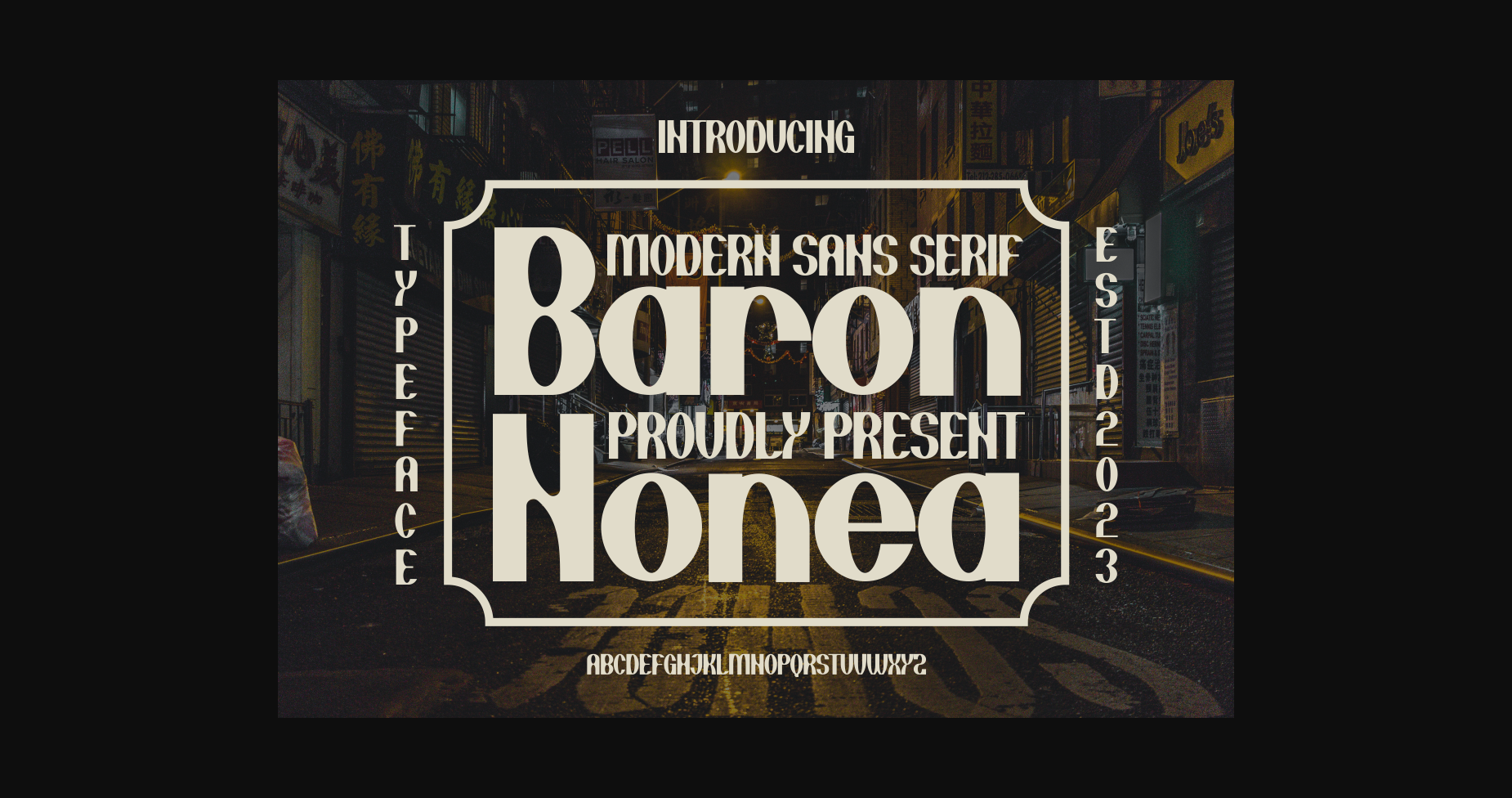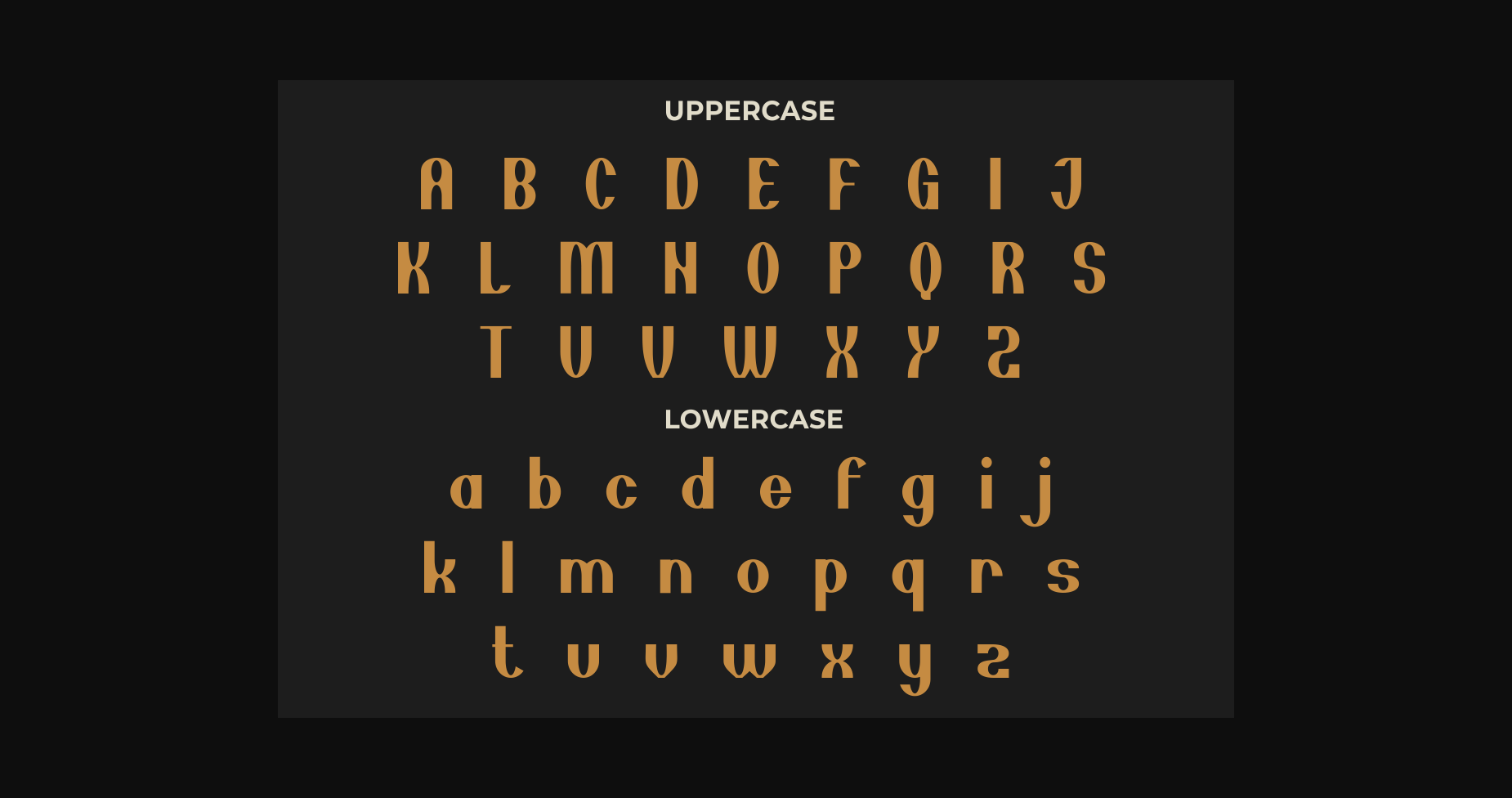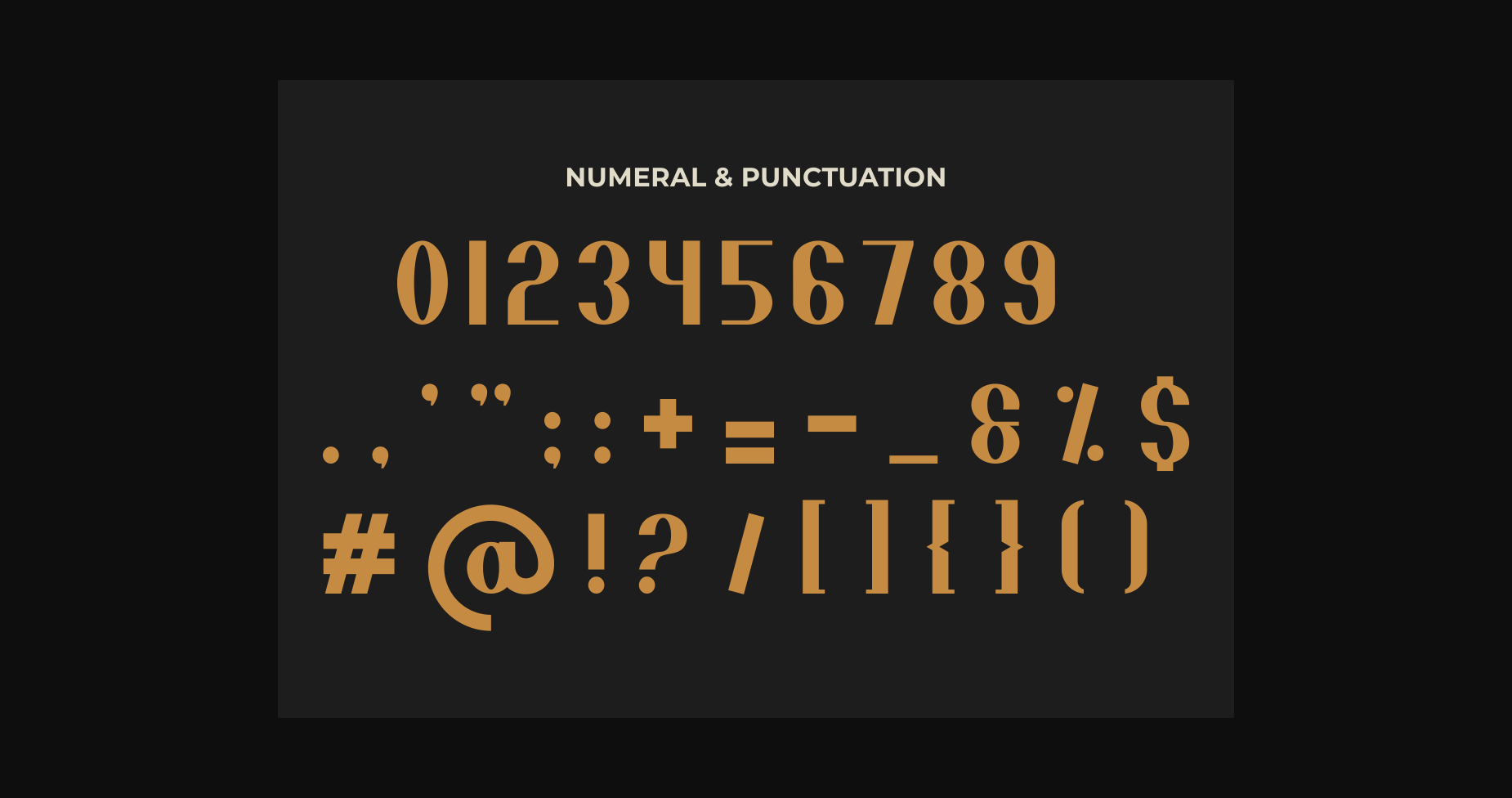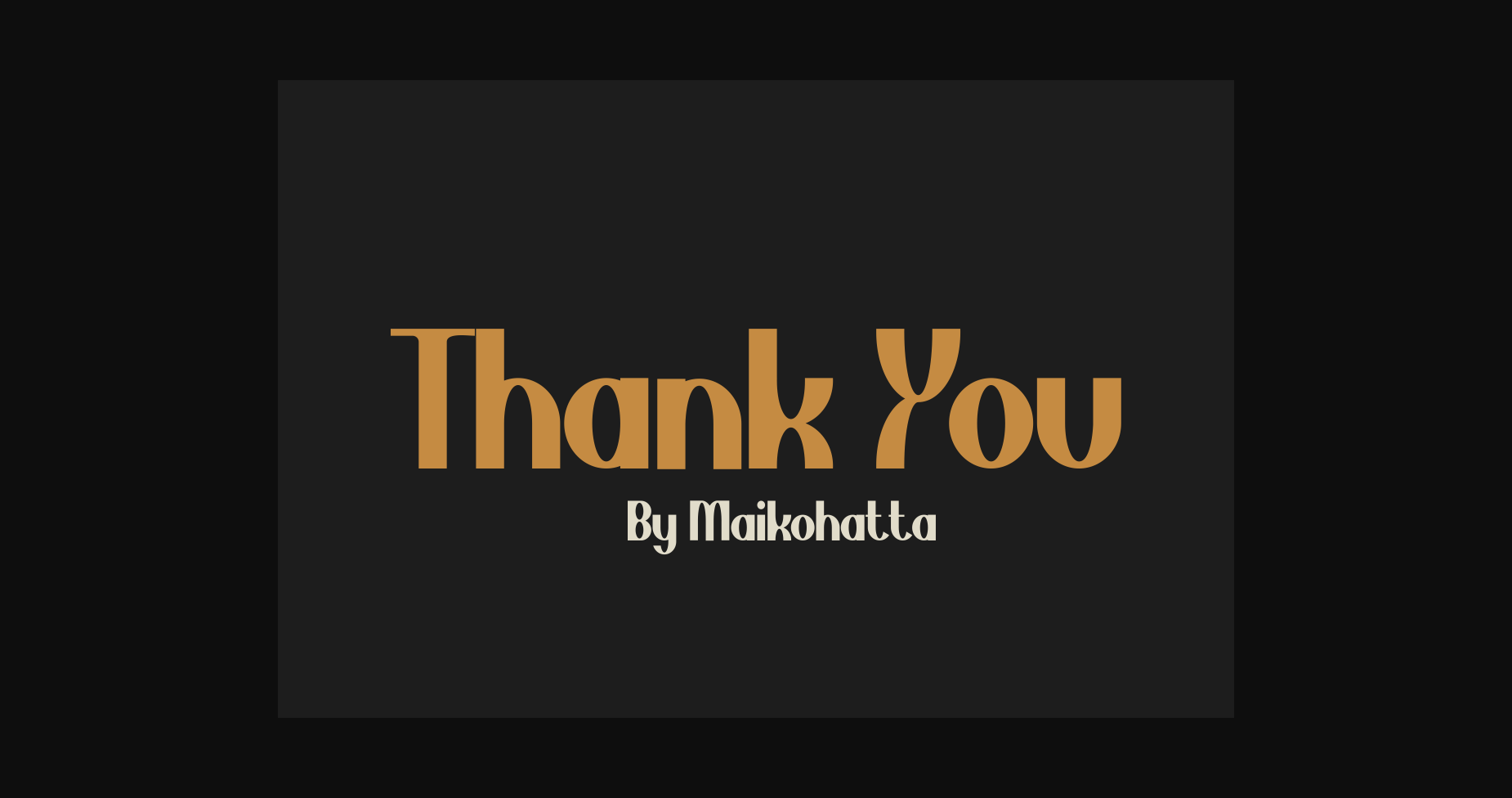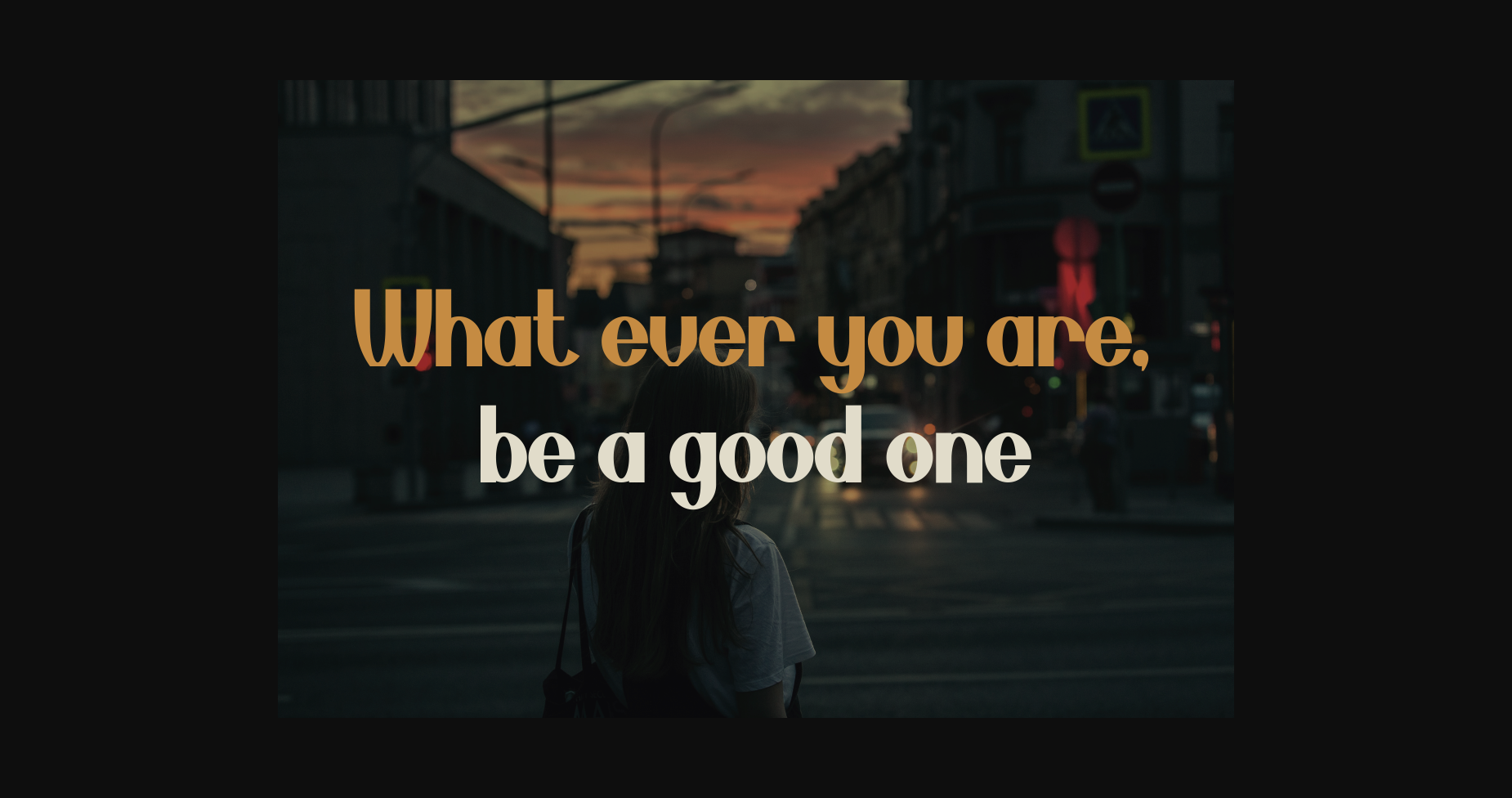
Baron Nonea Font
About Baron Nonea Font
Baron Nonea is a modern, bold, and authentic sans serif font suitable for any branding projects such as logos, T-shirt printing, export, and many more. Outstanding in a wide range of contexts, this font will make a great addition to your library!